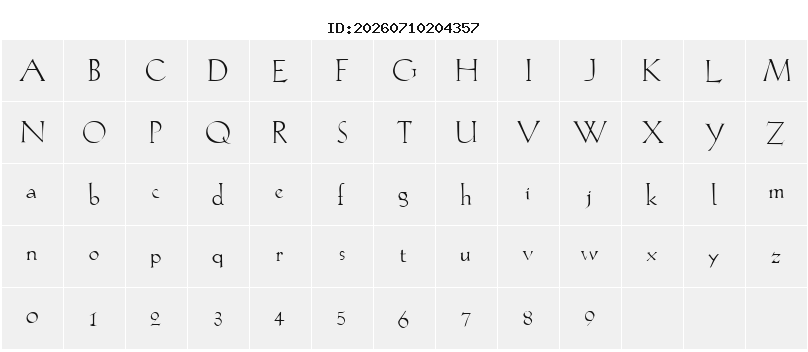
About Gabel Lite.ttf
Gabel Lite.ttf is a modern, elegant sans-serif font designed for ultimate readability and visual harmony. Perfect for branding, headlines, web design, and print materials.